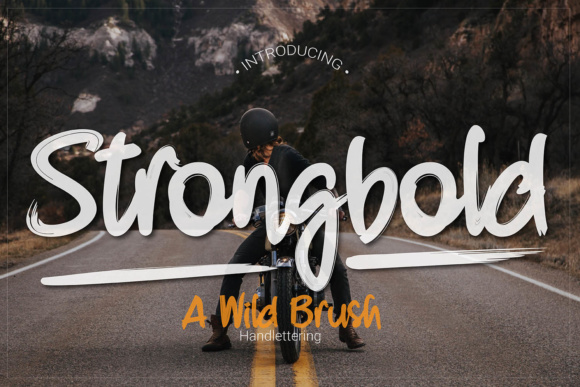
Strongbold Font
Introducing Strongbold, a remarkable script font family meticulously crafted by 38.lineart to bring a touch of individuality and vibrancy to your creative endeavors. This exquisite font, characterized by its elegant dry brush strokes, exudes a sense of playfulness and ease, making it the perfect choice for expressing your unique style.
With Strongbold, you'll embark on a journey of limitless possibilities, transforming ordinary designs into captivating masterpieces. Its effortless flow and organic texture add a personal touch that resonates with audiences, leaving a lasting impression. Whether you're a seasoned designer or a creative enthusiast, Strongbold will become your trusted companion, guiding you towards design excellence.
Unleash your imagination and let Strongbold's charm work its magic. Create eye-catching logos that demand attention, captivating social media graphics that ignite engagement, and stunning posters that evoke emotions. The versatility of Strongbold knows no bounds, extending from wedding invitations that radiate romance to product packaging that exudes sophistication.
With Strongbold, you'll discover a font that goes beyond mere aesthetics. It's a conduit for expressing your emotions, a tool to connect with your audience on a deeper level. Its casual elegance invites warmth and approachability, making it an ideal choice for branding that seeks to establish a genuine connection with customers.
Embrace Strongbold and embark on a creative adventure where your designs take center stage. Its user-friendly nature makes it accessible to both seasoned professionals and those just starting their design journey. Let Strongbold be your guide as you navigate the world of typography, leaving a trail of beauty and inspiration in your wake.